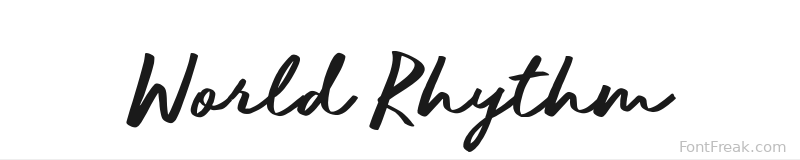
World Rhythm
World Rhythm is a captivating display font designed by BLKBK Fonts, characterized by its elegant and flowing script style. This font exudes a sense of movement and energy, making it perfect for projects that aim to convey a vibrant and dynamic feel. The strokes are fluid and have a moderate contrast, creating a harmonious balance that captures attention without overwhelming the viewer. The spacing is well-considered, allowing for clear readability while maintaining its artistic flair.
This font is ideal for a variety of creative applications. It shines in wedding invitations, where its graceful curves can evoke feelings of love and celebration. Additionally, it works wonderfully on movie posters, providing an artistic touch that draws in audiences. Restaurant menus can benefit from the World Rhythm font, adding a unique charm that enhances the dining experience. Furthermore, it’s a great choice for branding materials, helping small businesses establish a memorable and inviting identity.
The target audience for the World Rhythm font includes graphic designers looking to elevate their design projects, small business owners seeking to create a distinct brand presence, and content creators who want to add an artistic flair to their work. This font is versatile enough to appeal to anyone aiming to infuse creativity into their designs.
In conclusion, the World Rhythm font stands out due to its unique combination of elegance and energy, making it a versatile choice for diverse applications. Its artistic script style invites users to explore new creative avenues, and with the World Rhythm font free download option, it becomes an accessible resource for anyone looking to enhance their design projects.